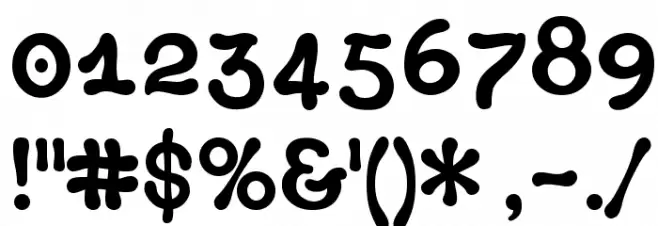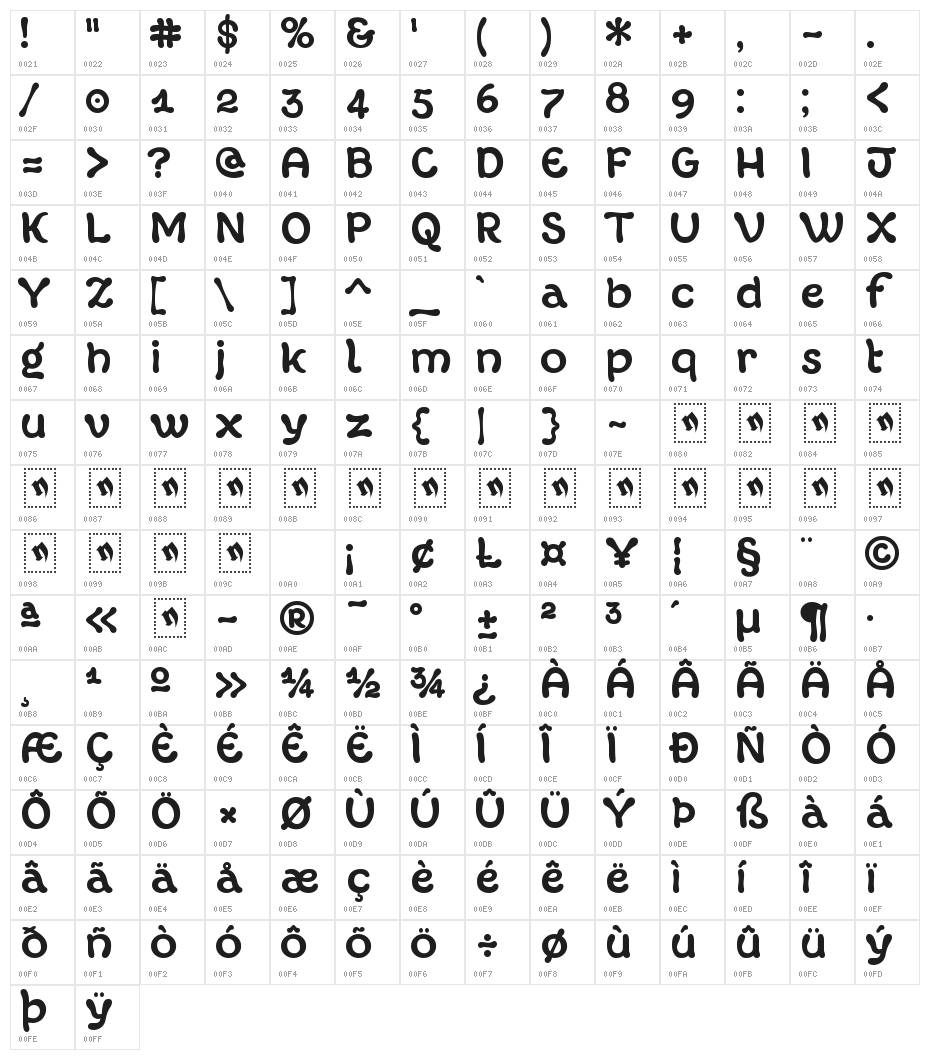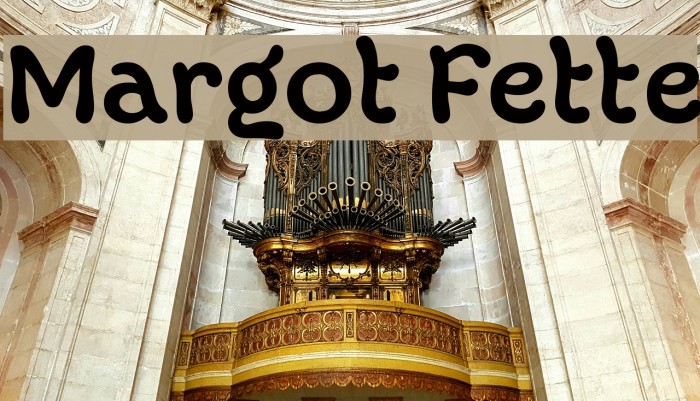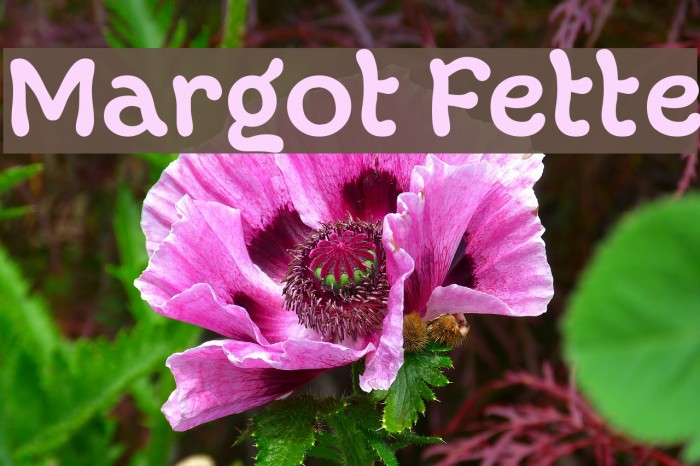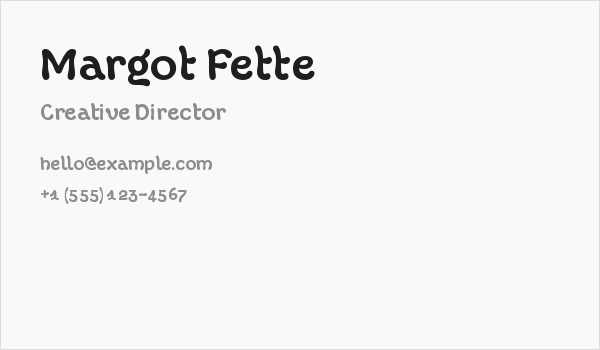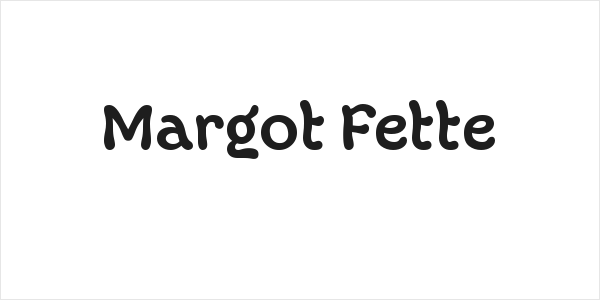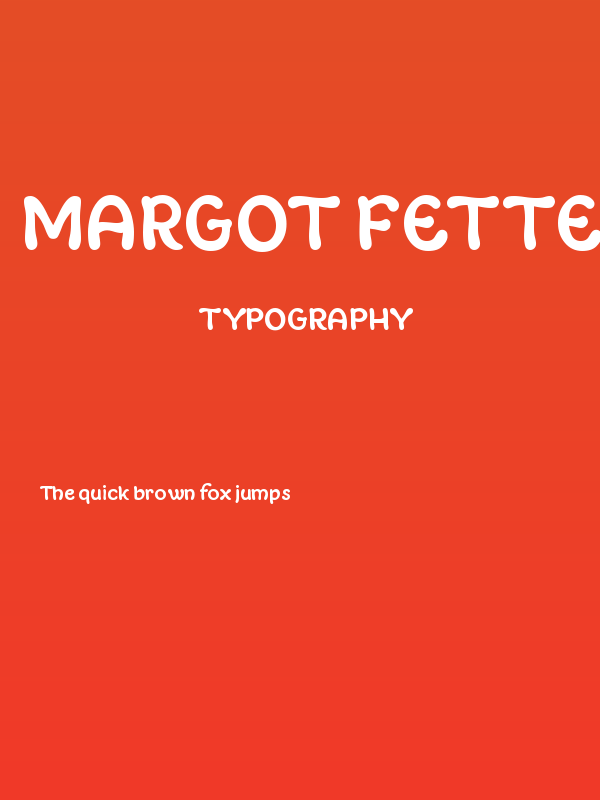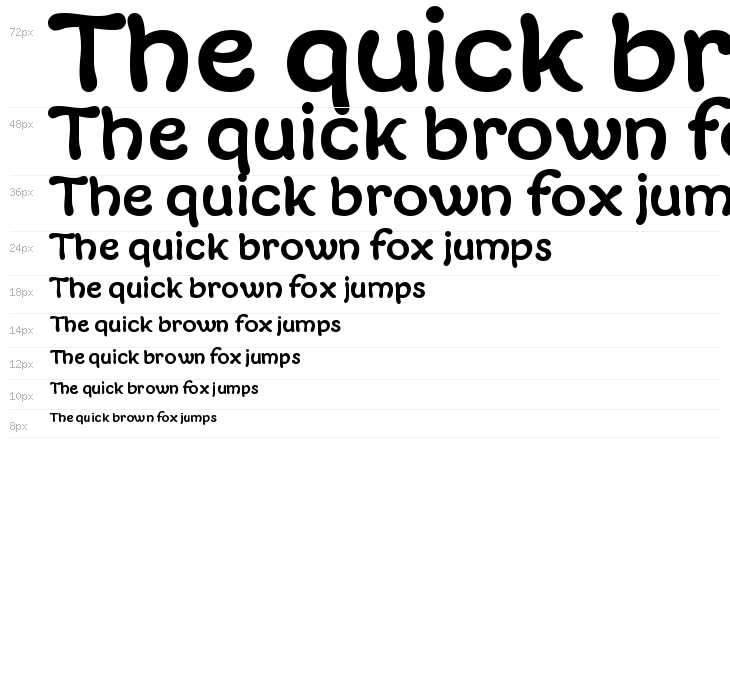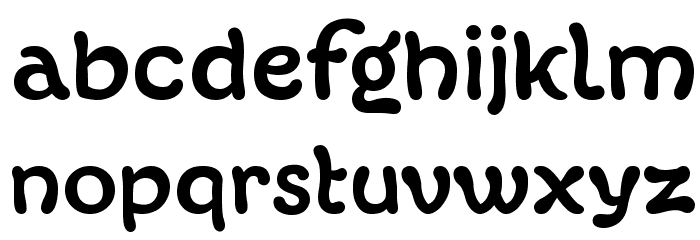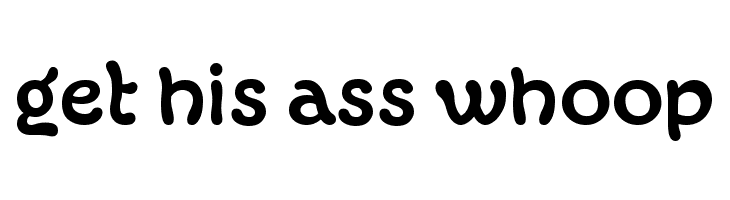
Margot Fette Font
Margot Fette Description
This font features a playful and bold style with rounded edges and a slightly whimsical appearance. The characters are thick and have a consistent stroke width, giving them a strong presence on the page. The rounded terminals and smooth curves contribute to a friendly and approachable look, making it suitable for informal and fun designs. The font maintains a uniform weight throughout, ensuring readability while adding a touch of personality. Its unique style makes it stand out, perfect for projects that require a distinctive and lively typeface.
Overall StylePlayful
Proposed ProjectsIdeal for children's books, playful branding, posters, and social media graphics.